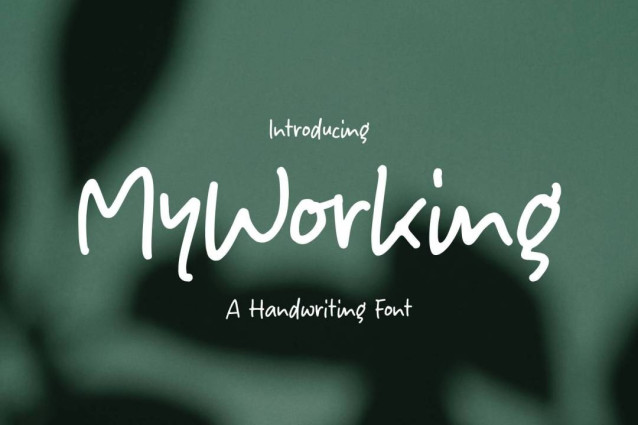
My Working Font
My Working Font is a simple and friendly handwritten font. Its natural and unique style makes it incredibly fitting to a large pool of designs. The only limit is your imagination!